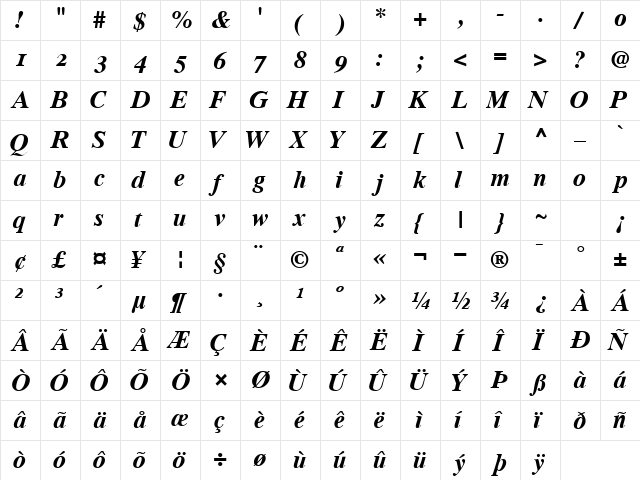
GrecoTenOSSSK Bold Italic
Design Context for GrecoTenOSSSK Typeface
GrecoTenOSSSK is a composed and adaptable typeface that performs quietly and consistently across a wide range of design contexts. The dynamic lean of this cut emphasises speed and emphasis in any layout. Its bold stroke weight gives it real presence on the page.
Pro Tip: Use GrecoTenOSSSK for emphasis, pull quotes, and subheadings where its slanted energy can add rhythm to the layout.